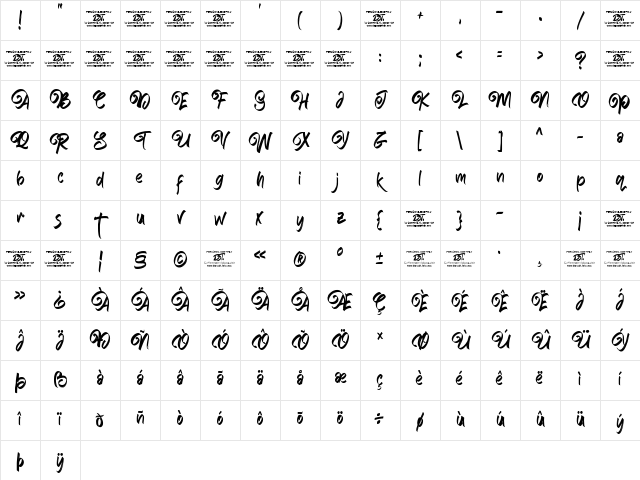
Hishee Sweet Regular Free Font
Hishee Sweet Regular
Designer: Toni Dzulham
Complete Hishee Sweet Regular glyph index. Displaying only characters natively supported by Hishee Sweet Regular font.
Design Context for Hishee Sweet
Hishee Sweet is a composed and adaptable typeface that performs quietly and consistently across a wide range of design contexts.